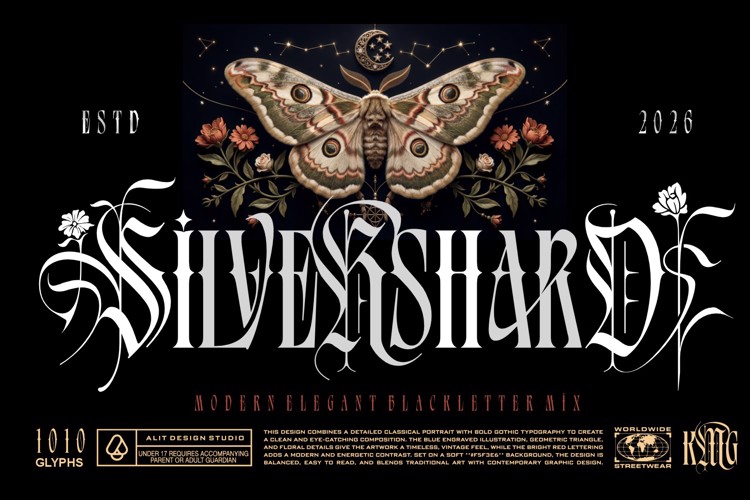
Silver Shard Font
Silver Shard – Modern Elegant Blackletter Typeface
Embrace the allure of the mystic and the elegance of the dark with Silver Shard, a premium modern blackletter typeface designed to make a striking statement. Combining classic gothic typography with sharp, ornate, and contemporary details, Silver Shard offers a timeless vintage feel balanced with a powerful, energetic contrast.
Whether you are designing for alternative streetwear, esoteric and occult branding, tattoo studios, dark fantasy book covers, luxury liquor packaging, or high-end merchandise, this typeface delivers a bold, enigmatic, and luxurious visual identity.